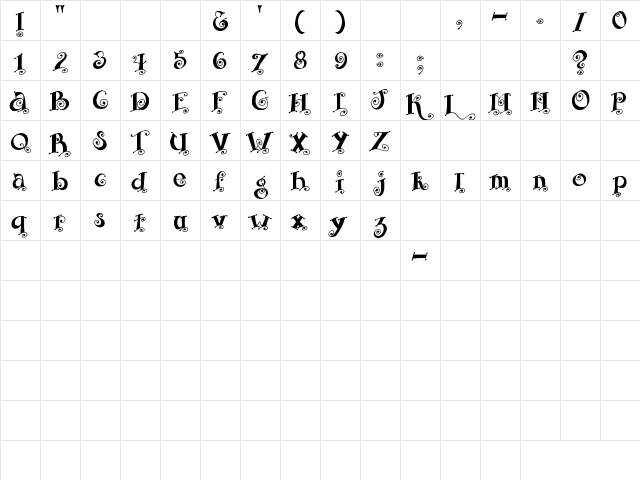
SBC Curly Regular Font Preview
SBC Curly Regular
Design Context for SBC Curly Typeface
SBC Curly is a composed and adaptable typeface that performs quietly and consistently across a wide range of design contexts.